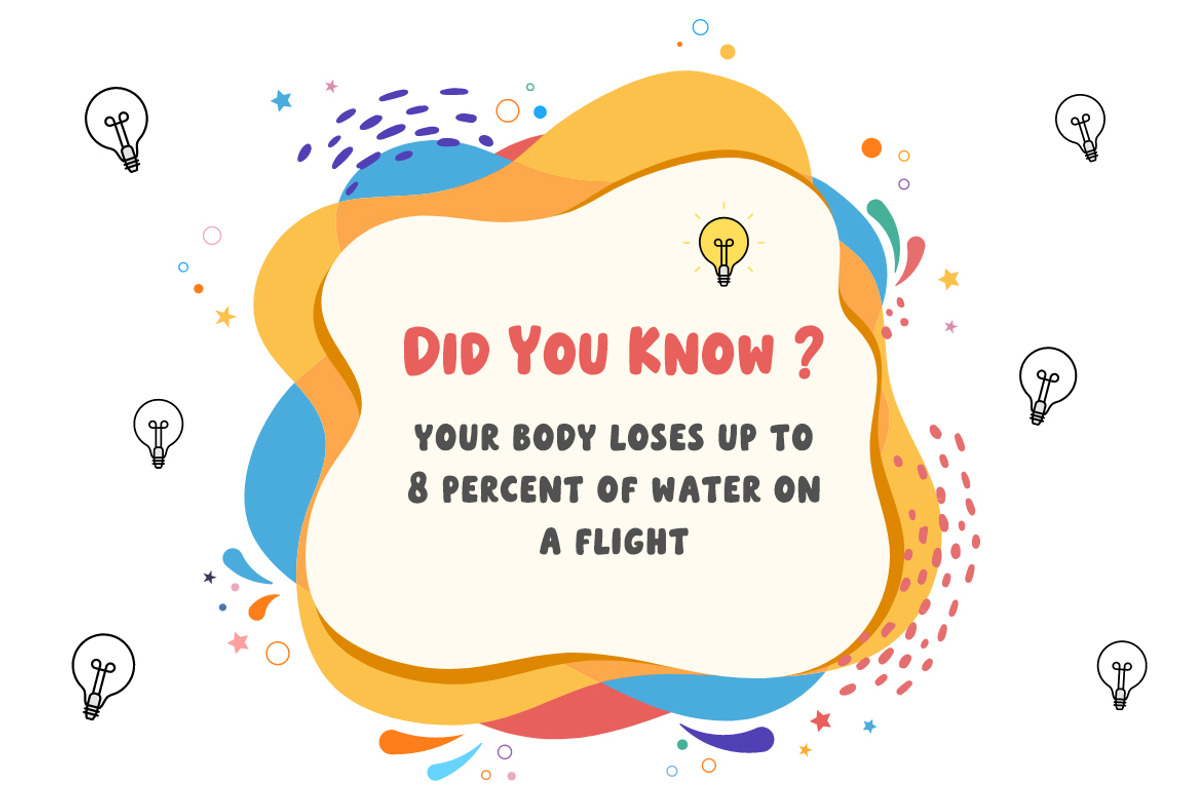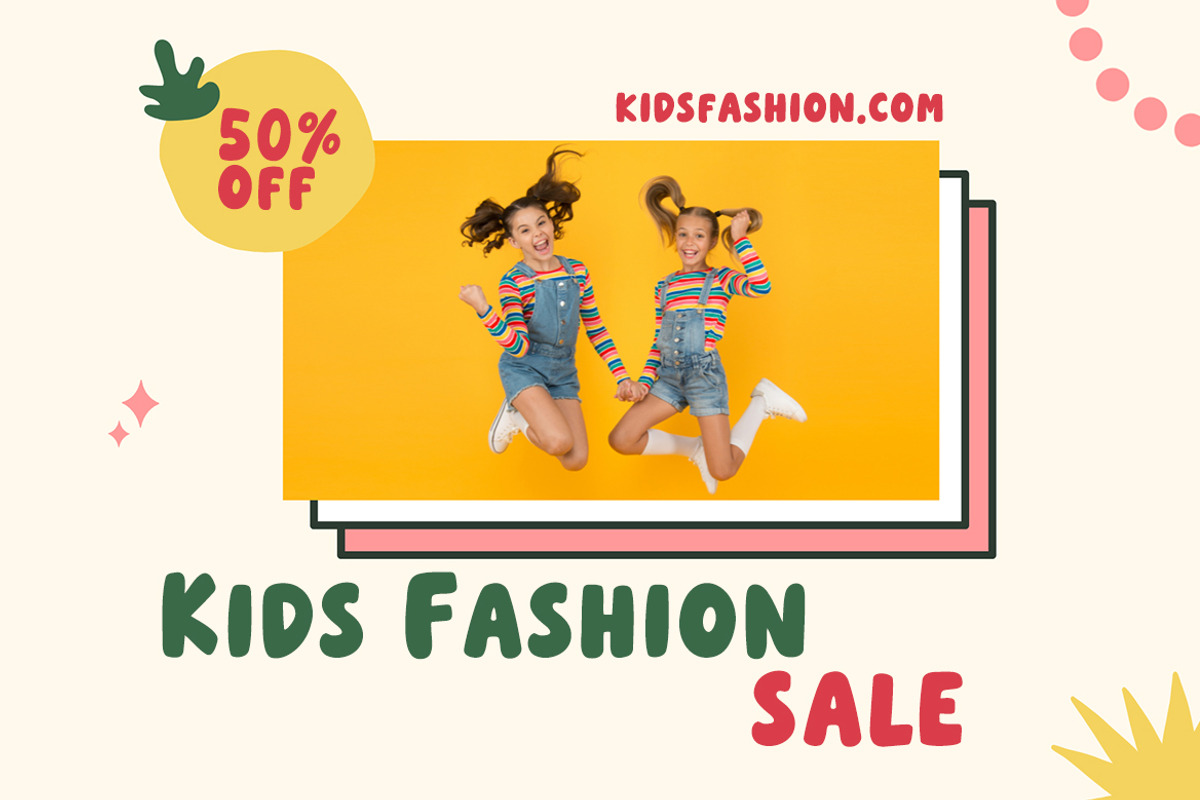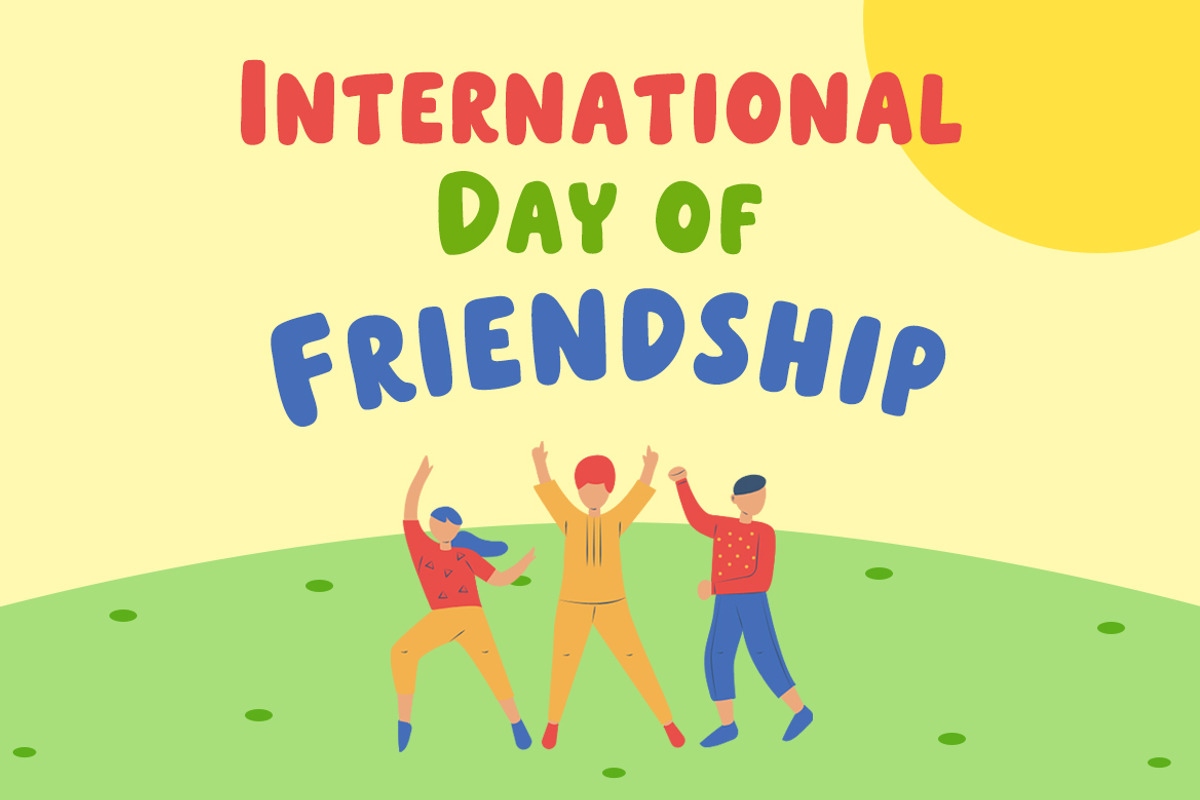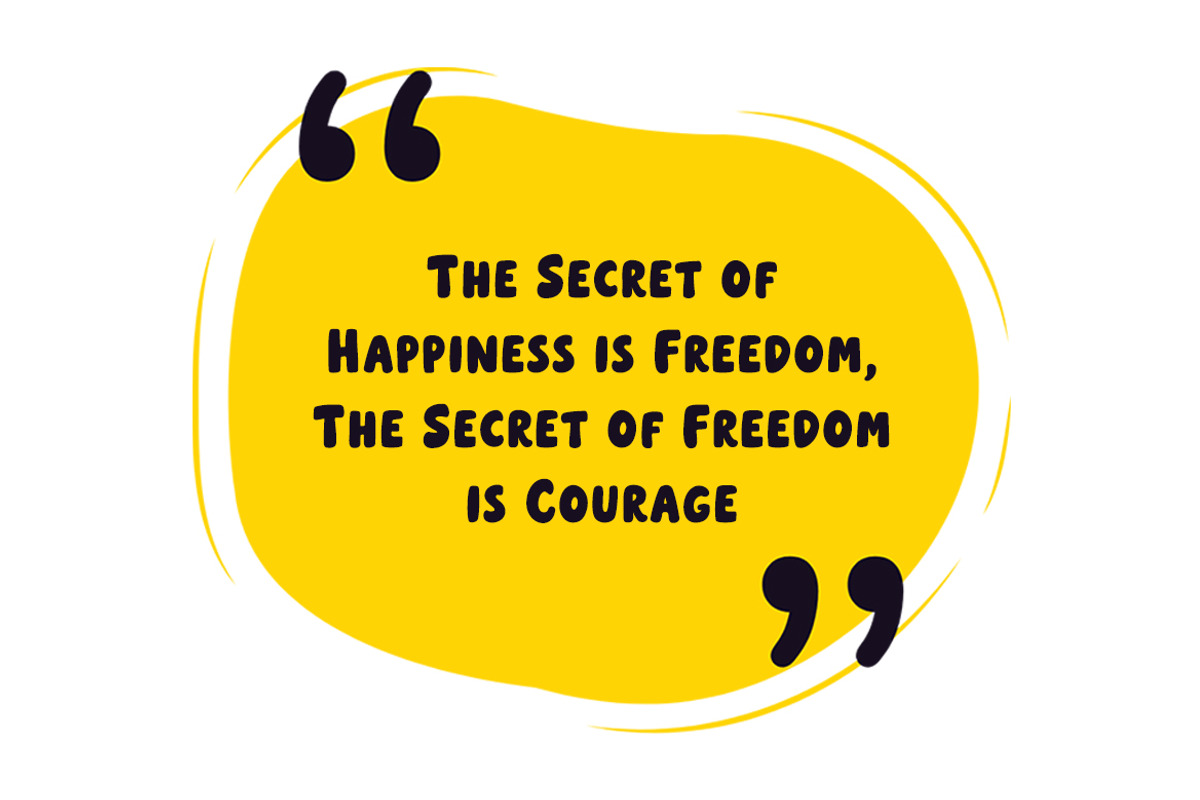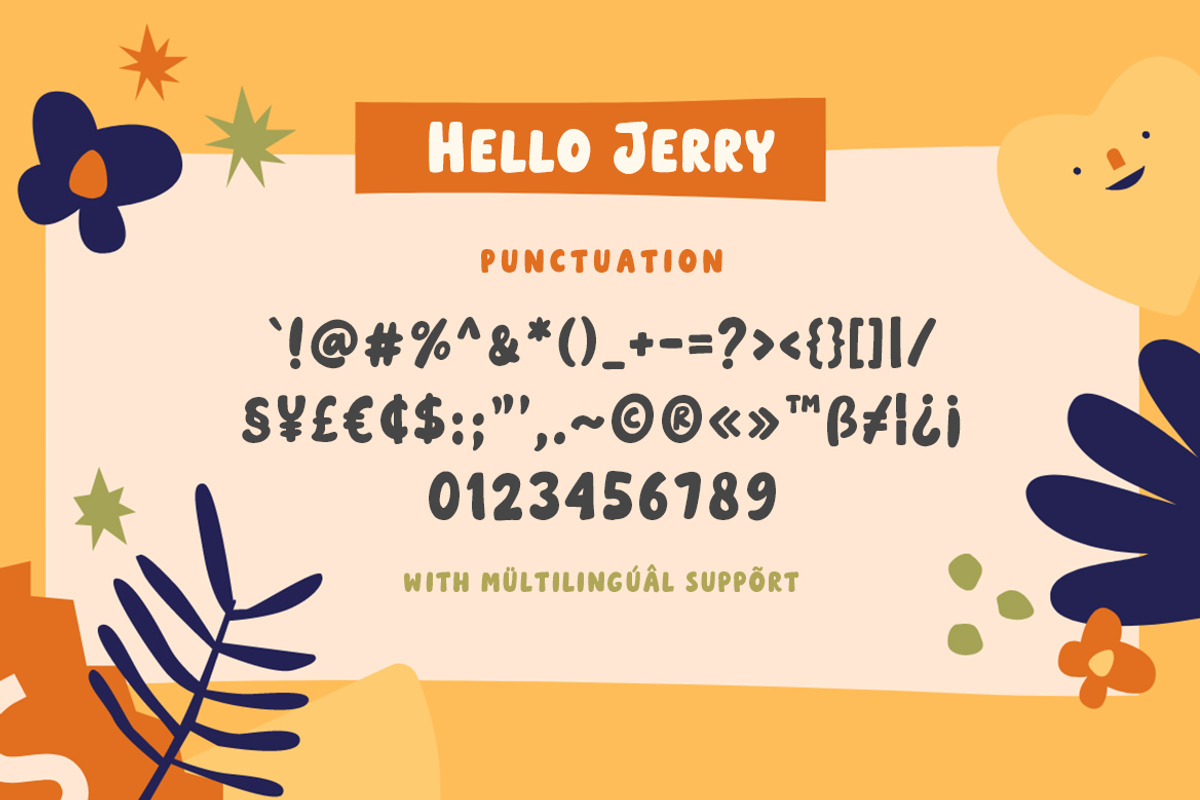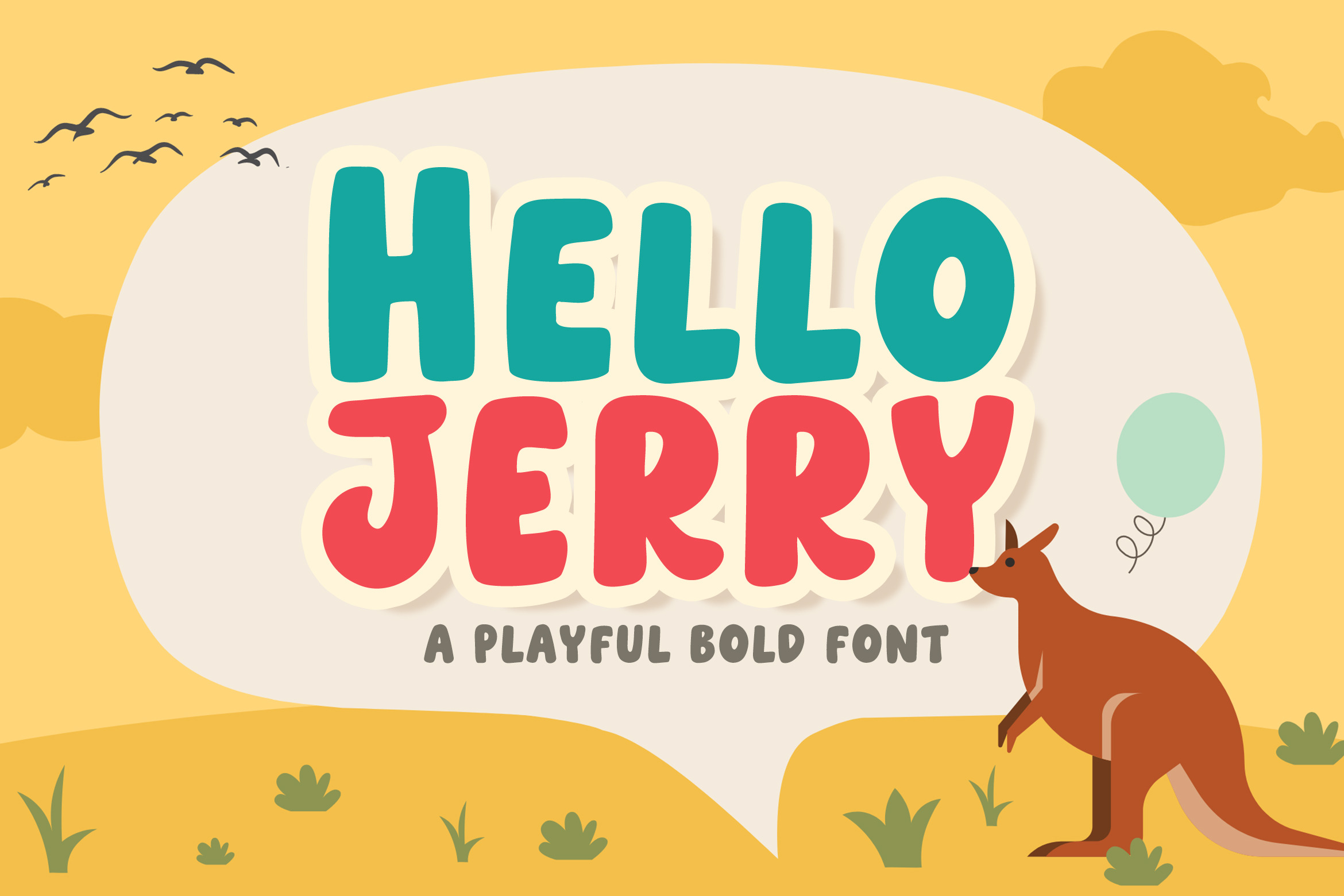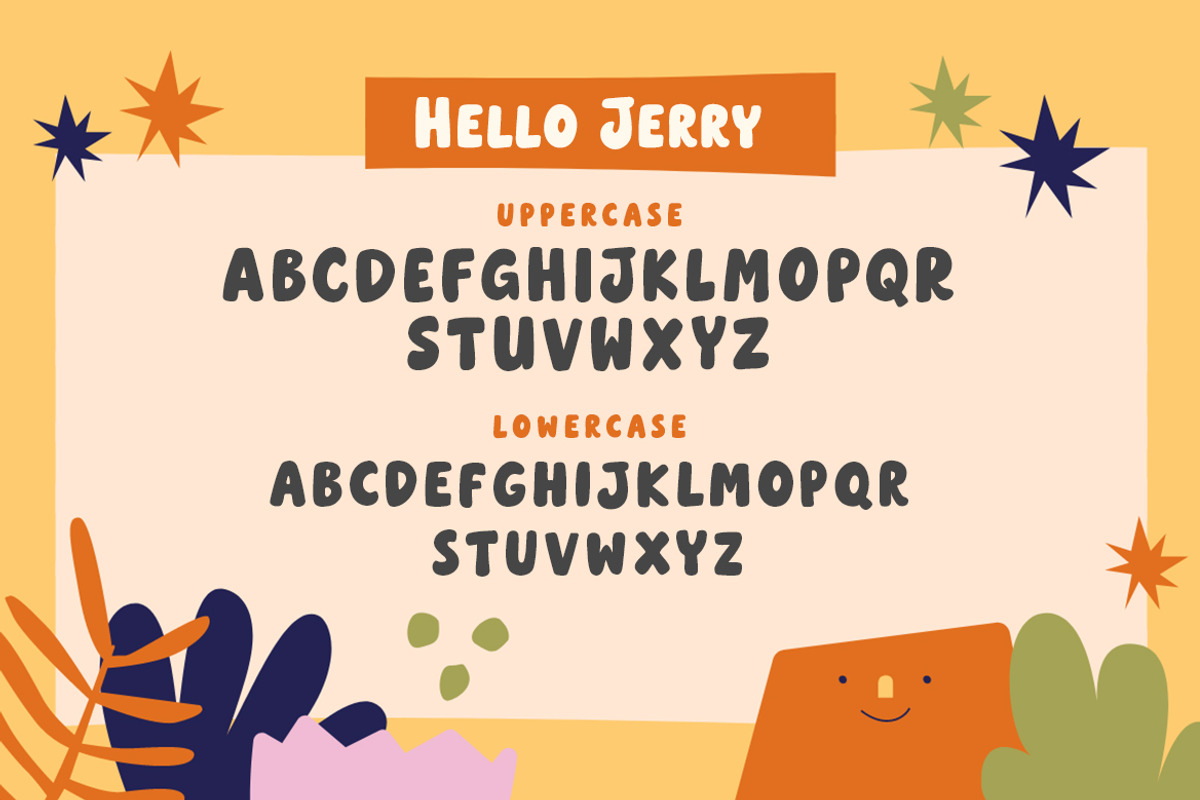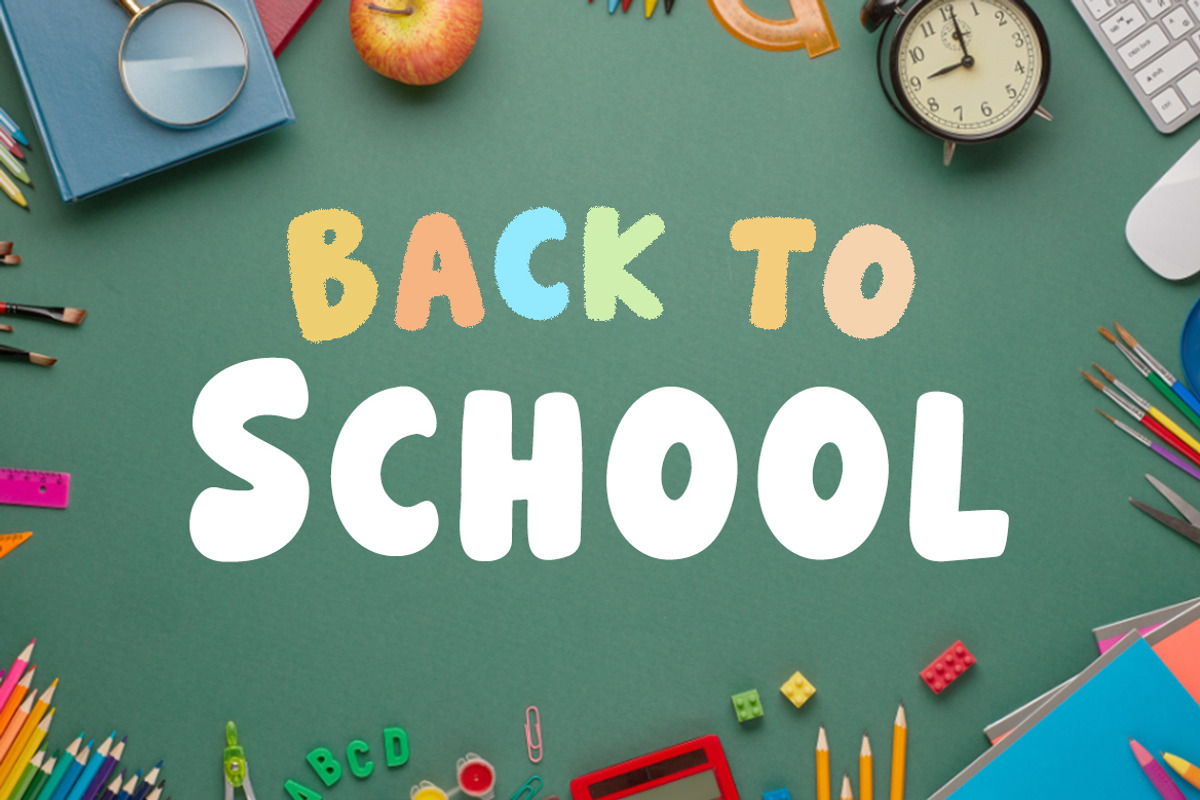
Hello Jerry - Playful Bold Font
Say hello to our new playful bold font.
A display font with fun vibes. Perfect for creating logos, quotes, greeting cards, book covers, posters, packaging and so much more. With all caps style and bold. You can combine a unique uppercase and lowercase to make fun designs.
All fonts contain upper & lowercase characters, numerals, and a large range of punctuation.